Introduction Passive Income from Fonts
The creative industry continues to evolve, giving designers more opportunities to earn money online—including passive income from fonts. Today, selling digital typography is one of the most profitable and scalable ways to turn creativity into a sustainable income stream. Whether you’re a beginner or an experienced type designer, the ability to earn royalties from your font creations offers long-term financial benefits without requiring constant ongoing effort.
In this article, we will explore how passive income from fonts works, where to sell your font creations, and strategies to maximize your earnings. We’ll also showcase several example font products created by EdricStudio to inspire your next typography project.
1. What Is Passive Income from Fonts?
Passive income from fonts refers to earning money repeatedly from font files you create once and sell multiple times. After the font is designed, exported, and uploaded to online marketplaces, customers can purchase licenses—giving you ongoing revenue even while you sleep.
This model works because fonts are:
- Digital products (no shipping costs)
- Scalable (can be sold unlimited times)
- Evergreen assets (usable for years across industries)
- In high demand, especially for branding, web design, packaging, and advertising
The more fonts you publish, the larger your potential passive income stream becomes.
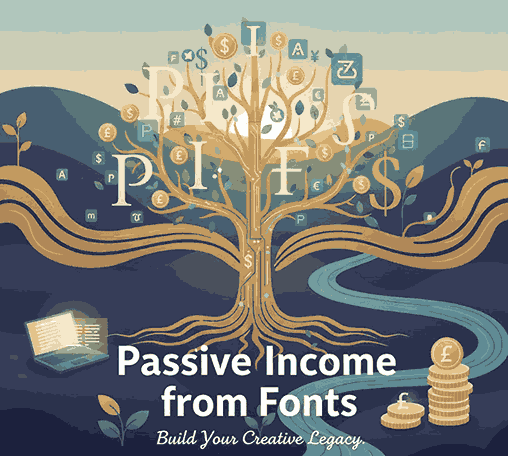
2. Why Selling Passive Income from Fonts Is a High-Potential Creative Business
Designers are increasingly looking for unique typography to differentiate their brand visuals. This trend fuels demand for custom fonts across multiple markets.
Key reasons selling Passive Income from Fonts is profitable:
- Growing global market for digital creative assets
- Low production cost after initial creation
- Royalty-based income from marketplaces
- Opportunities for custom licensing (web, app, broadcast, corporate)
- High buyer intent: businesses need professional typography
3. How Designers Earn Passive Income from Fonts
There are several income streams available for font creators:
a. Marketplaces Royalties Passive Income from Fonts
Platforms like Creative Market, Font Bundles, or MyFonts offer 40%–75% royalties per sale. Once uploaded, the platform promotes your work automatically.
b. Selling on Your Own Website
Your website—such as EdricStudio.com—gives you:
- 100% earnings
- Control over pricing
- Unlimited branding and marketing freedom
c. Licensing Options Passive Income from Fonts
You can charge different rates for:
- Personal use
- Commercial usage
- Webfont license
- App or software license
- Broadcast license
- Enterprise license
These higher-tier licenses can significantly increase your earnings.
While your main marketplace is EdricStudio.com, expanding to other platforms increases visibility.
Popular platforms include:
- Creative Market
- MyFonts
- FontBundles
- Envato Market
- Etsy (for creative audiences)
Each platform has different commission structures and audiences.
5. How to Market Your Passive Income from Fonts Effectively
To maximize passive income, you need not only quality fonts—but also strong marketing.
a. Use Professional Mockups
Displaying your font in real-world use cases increases conversions.
Example mockup fonts from EdricStudio:
b. Target Long-Tail Keywords
Use SEO keywords like:
- “best fonts for branding”
- “script typeface for logos”
- “signature font for business card design”
c. Maintain a Consistent Publishing Schedule
The more fonts you upload, the more search visibility you gain.
d. Promote on Social Media
Designers frequently discover fonts on:
- TikTok
- Behance
- Dribbble
Short videos showing your font in action perform especially well.
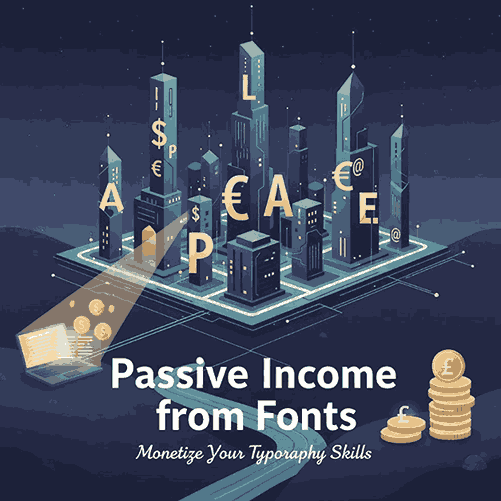
6. Examples of Passive Income from Fonts You Can Sell (With Mockups)
Below are three font products from EdricStudio that perfectly illustrate how designers can earn passive income online.
1. Classy Script Font
A beautiful, elegant script font perfect for wedding invitations, premium branding, and editorial design.
This type of stylish calligraphy is consistently in high demand and sells well on marketplaces.
2. Dewebeauty Signature Font
A modern signature handwriting font that appeals to personal branding, photography logos, and minimalist design aesthetics.